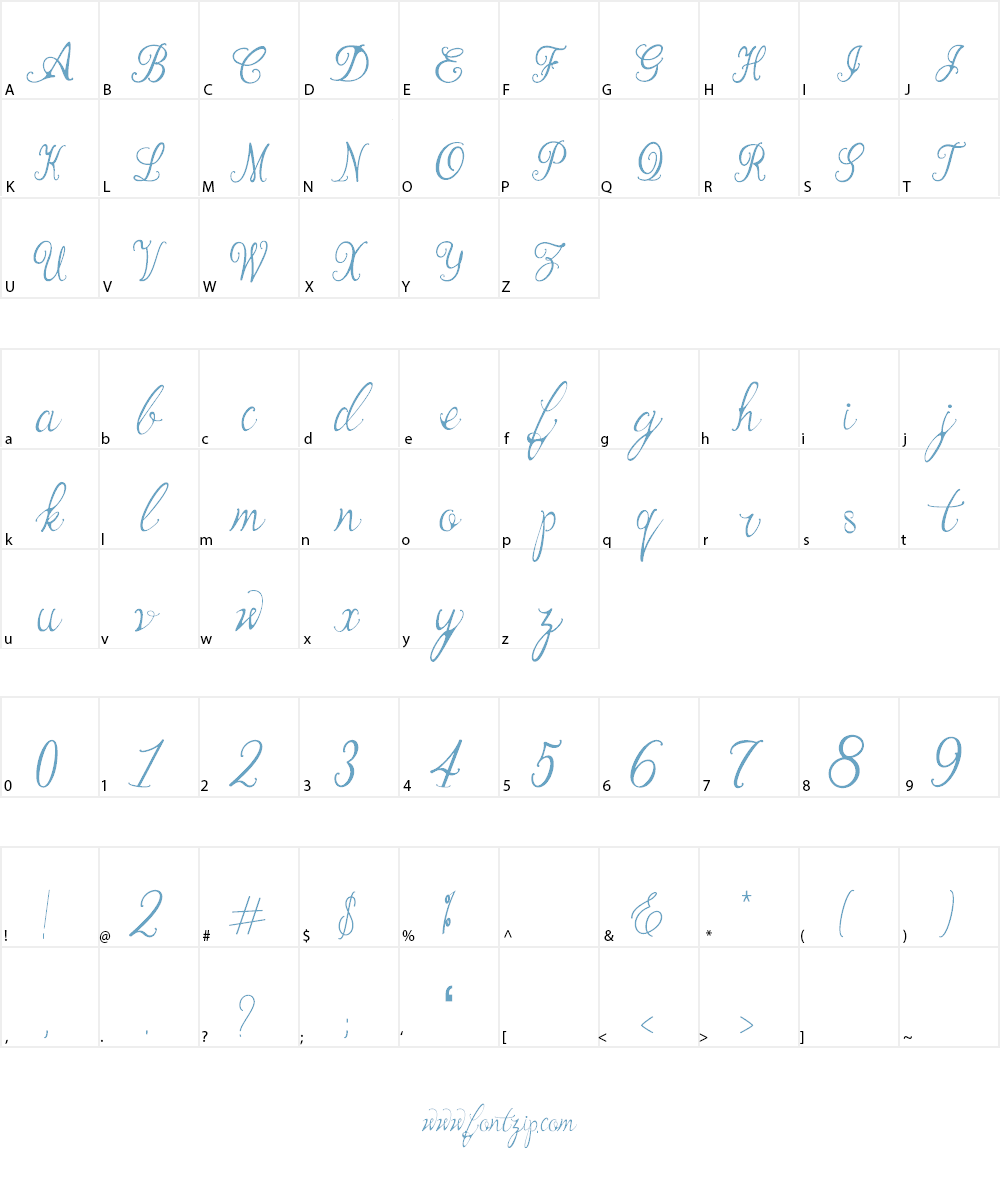
Bernadine Script Font is an authentic, unique, signature and stylish handwritten font with a natural and elegant caligraphy look.
It can be used in a wide range of design projects and is easy to use. Bernadine Script Font comes with uppercase, lowercase, standard punctuation, and numbers.
Bernadine Script Font has variety of unique handmade-look outcomes that can be combined together with a large range of designs.